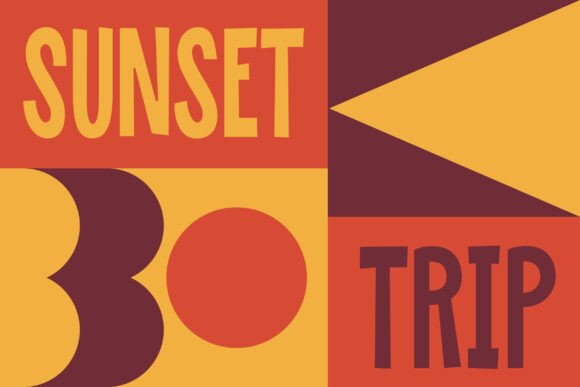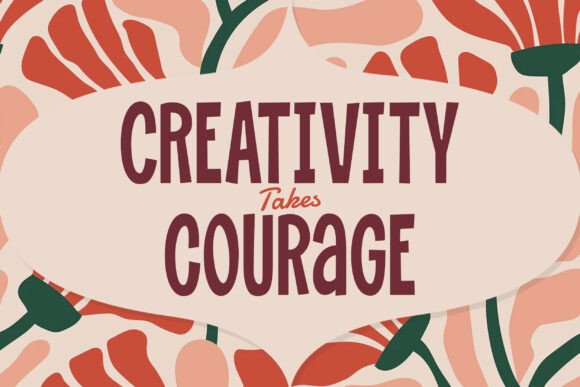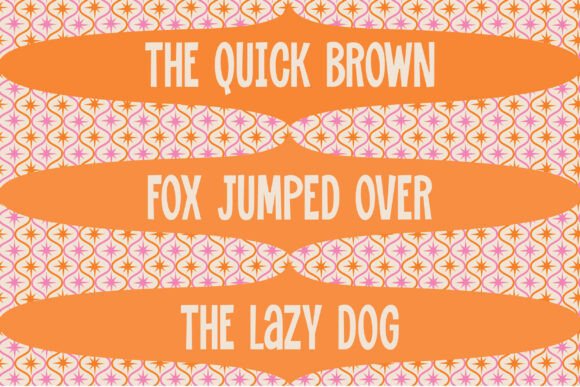
Coast Park Font
Coast Park is a sweet and friendly handwritten font. Its natural and unique style makes it incredibly fitting to a large pool of designs. The only limit is your imagination!